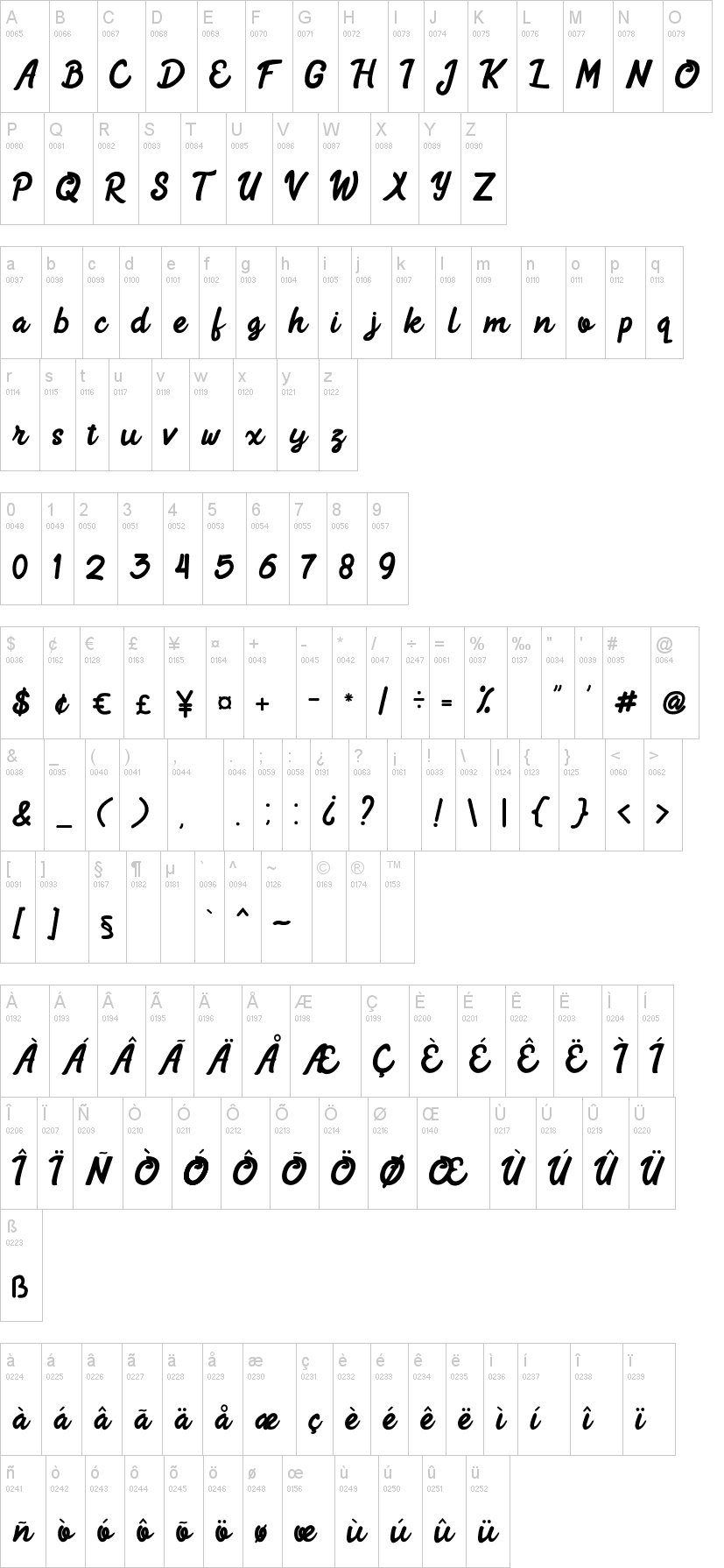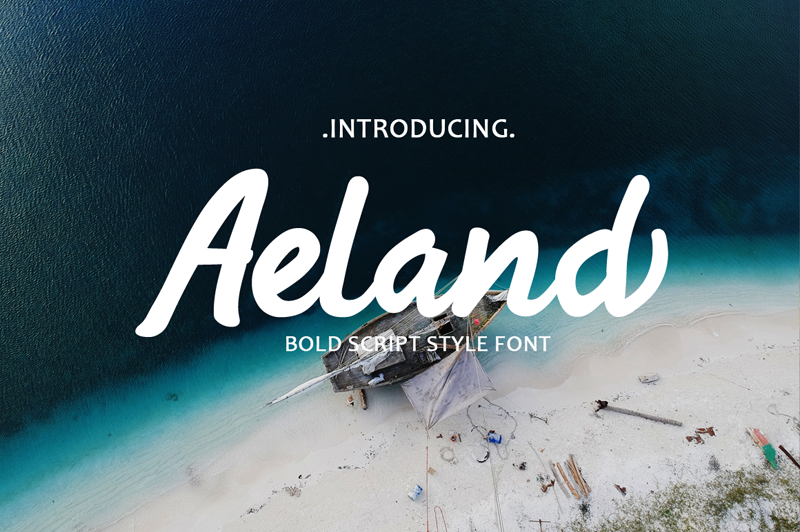
Note of the authorAeland is bold script typeface. Aeland Typeface a beautiful for wedding card design, logotype, website header, fashion design and any mor